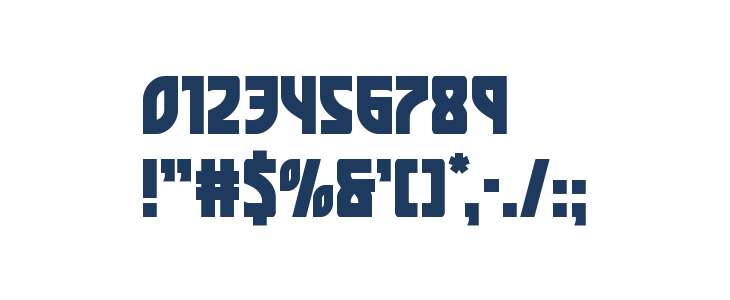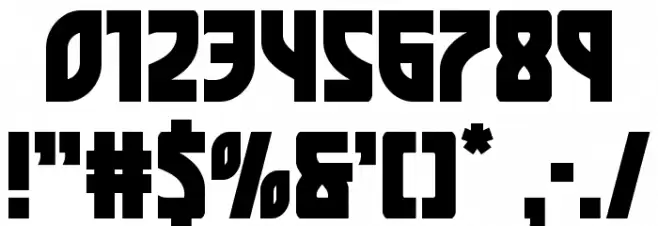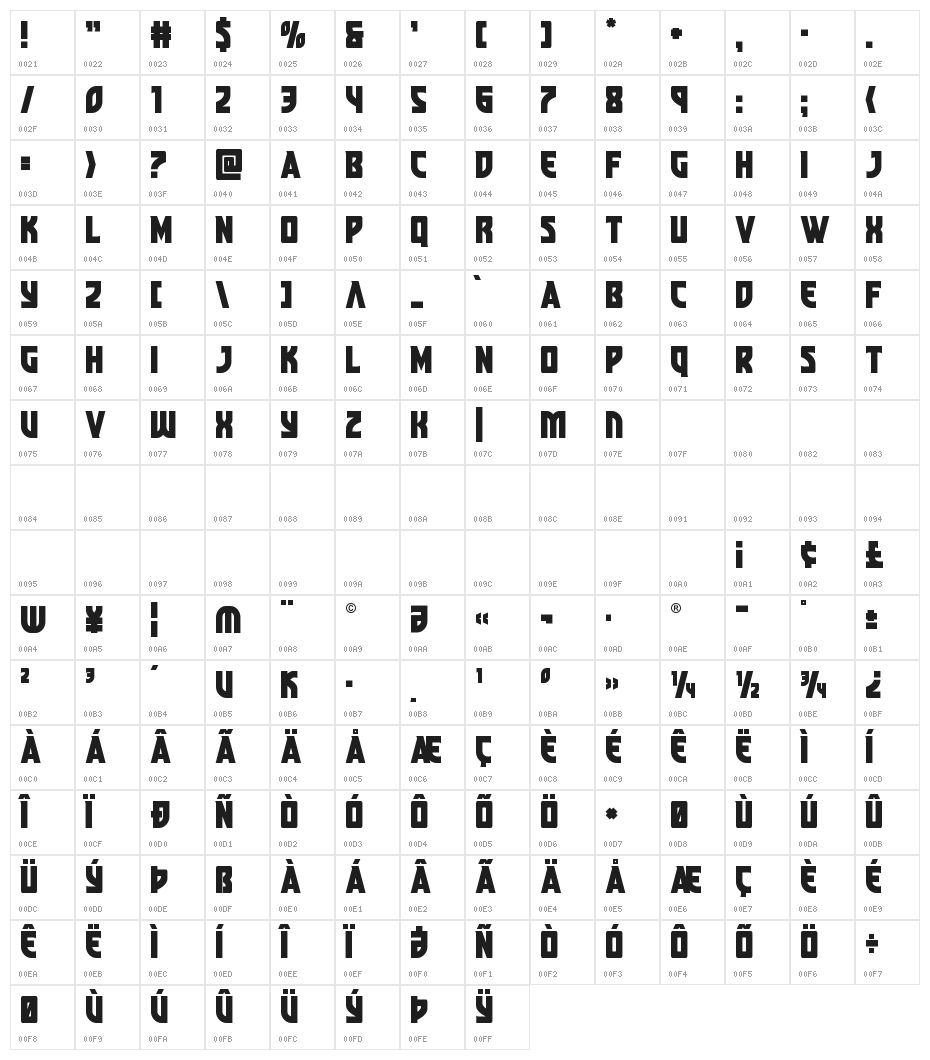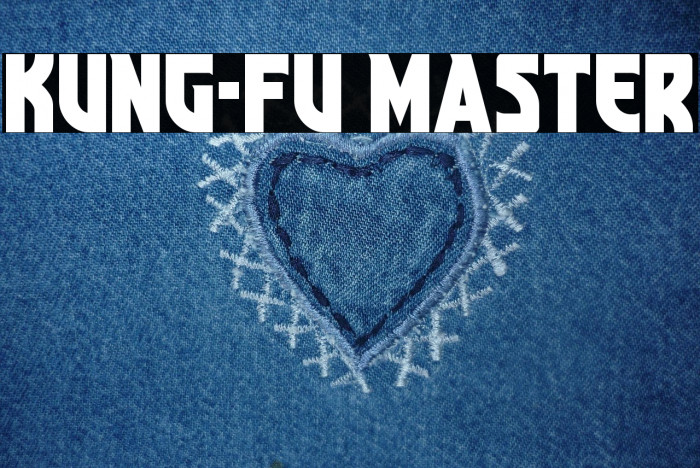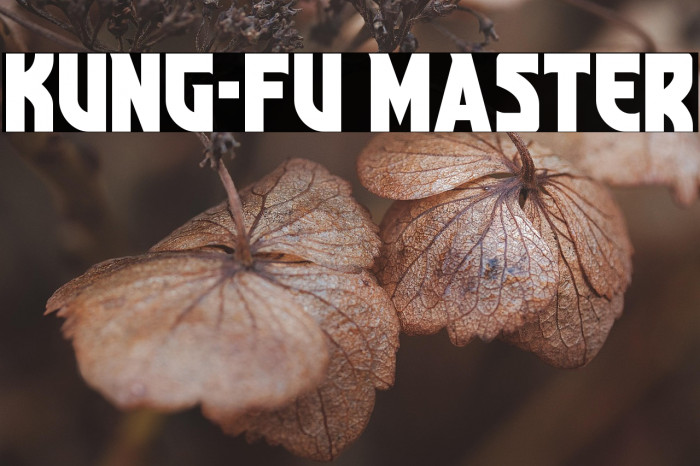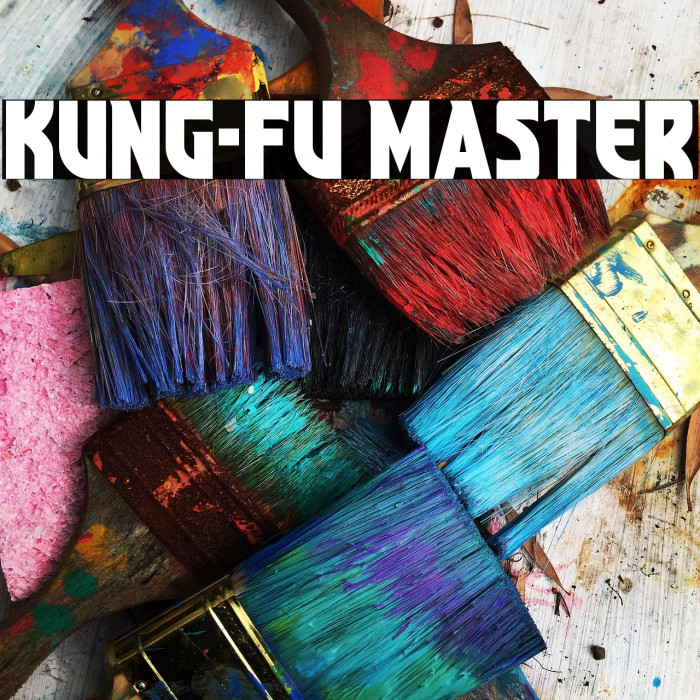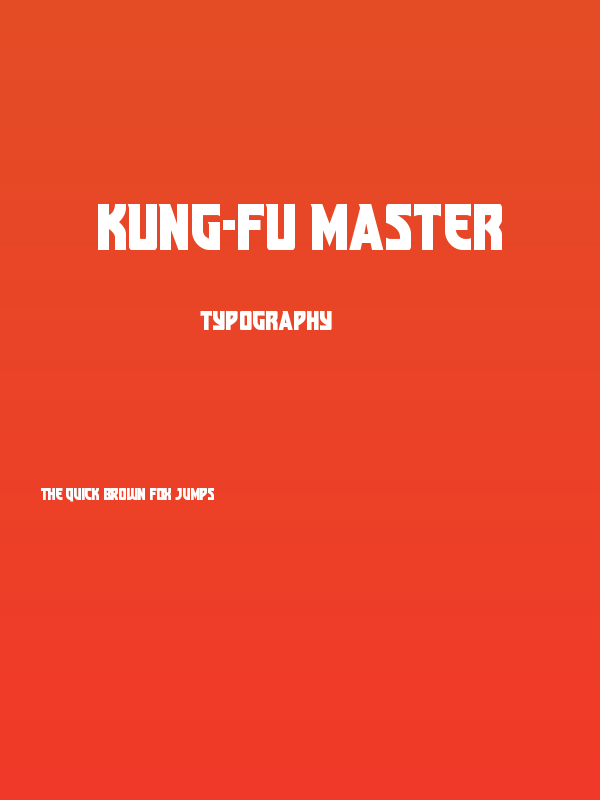
Kung-Fu Master Font
Kung-Fu Master Description
This font features a bold and striking design with thick, angular strokes that convey a sense of strength and power. The characters are uniformly wide, with sharp edges and a geometric style that adds a modern and dynamic feel. The uppercase letters are particularly prominent, making them ideal for attention-grabbing headlines or titles. The numerals and special characters maintain the same boldness and angularity, ensuring consistency across all text elements. This font's strong visual impact makes it suitable for projects that require a commanding presence.